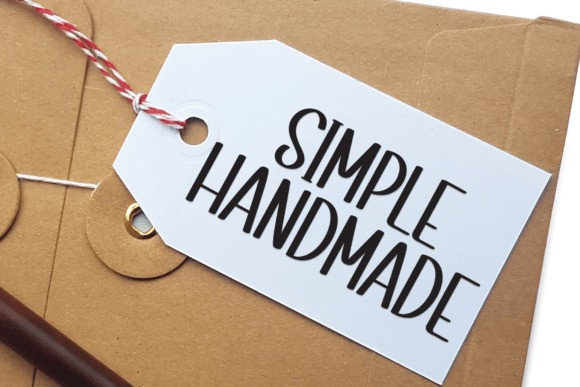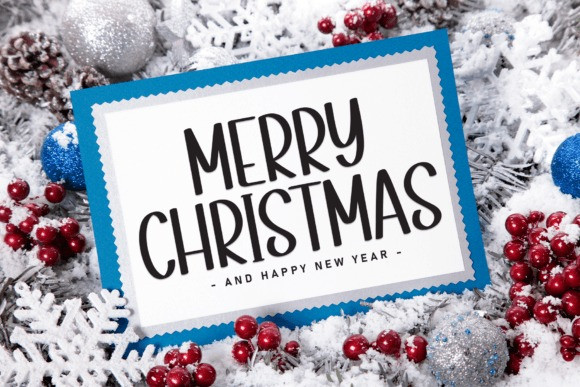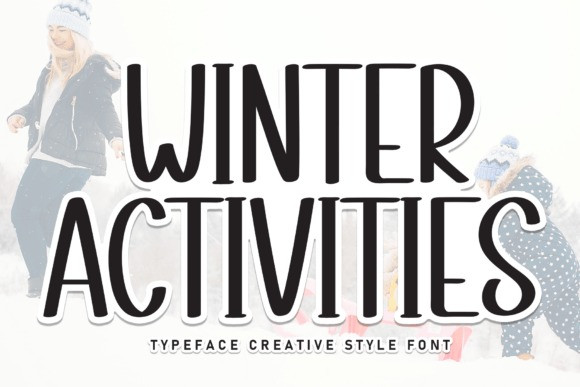
Winter Activities Font
Winter Activities Font is a sweet and friendly handwritten font. Its natural and unique style makes it incredibly fitting to a large pool of designs. The only limit is your imagination!